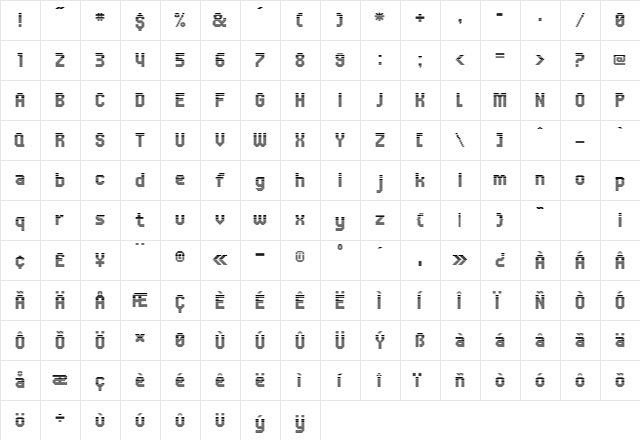
UNDASquare Regular
UNDASquare takes a measured approach to typography — its balanced proportions and neutral character make it a reliable workhorse for both digital and print work.